Nur Hidayah Font
Nur Hidayah is an authentic and distinct display font. It can be used for various purposes such as logos, wedding invitations, headings, t-shirts, letterhead, signage, labels, news, posters, badges and so much more.
Calcaries Font
Calcaries is a cool and incredibly unique display font. This original look will appeal to a wide range of crafty ideas, from letterheads and titles, to stationery.
Verine Font
Verine is a bold and thick lettered vintage styled display font. This font reads as strong, confident, and dynamic and can add tons of nostalgic character to your designs.
Chopader Font
Chopader is a bold and vintage styled display font. It will look stunning on any poster flyer or print. Use this font for your designs and explore its endless possibilities.
Carberon Font
Carberon is a simple and sharp looking display font, that will truly inspire your works. Use this font for your designs and explore its endless possibilities.
Lanford Font
Lanford is an imposing, vintage styled display font. This font reads as strong, confident, and dynamic and can add tons of nostalgic character to your designs.
Roma Invicta Font
Roma Invicta is a versatile and imposing duo font (script and sans serif). Incredibly elegant, this font fits a wide pool of designs, elevating them to the highest levels. Add this font to your favorite creative ideas and notice how it makes them come alive!
Lomario Font
Lomario is a delicate, elegant and flowing handwritten font. It has beautiful and well balanced characters and as a result, it matches a wide pool of designs. This font is PUA encoded which means you can access all of the glyphs and swashes with ease!
Mokashin Font
Mokashin is a beautiful light handwritten font with a unique feel and a stunning impact. It will add a luxury spark to any design project that you wish to create!
Wrecked Ship Font
Wrecked Ship is an assertive classic styled display font. It will look stunning on any poster flyer or print. Use this font for your designs and explore its endless possibilities.
Dastyn Font
Dastyn is an elegant and flowing brushed handwritten font that features sweet and delicate swashes. This original look will appeal to a wide range of crafty ideas, from letterheads and titles, to stationery.
Honors Font
Honors is a cool, thick lettered, brushed display font. It will look stunning on any poster flyer or print. Use this font for your designs and explore its endless possibilities.
Stigsa Display is a high-contrast typeface inspired by transitional and contemporary typefaces. A vertical stress with sharp serifs, delicate and legible. Stigsa Display family consist of 35 fonts: 7 weigths and 5 widths. With 1143 glyphs each. Stigsa Display family with various styles will be an handy tool for a wide variety of designs. The typeface high contrast designed for use in big text sizes and medium sizes. Via the OpenType features allow for the implementation of typographic niceties such as small caps, tabular figures and oldstyle figures, ligatures, case-sensitive, fractions and extended language support.
Mandhor Font
Create gorgeous and timeless designs with Mandhor, an interesting and unique display font. Fall in love with its incredibly stylish look and use it for logos, quotes, invitations, business cards, power point presentations, and more!
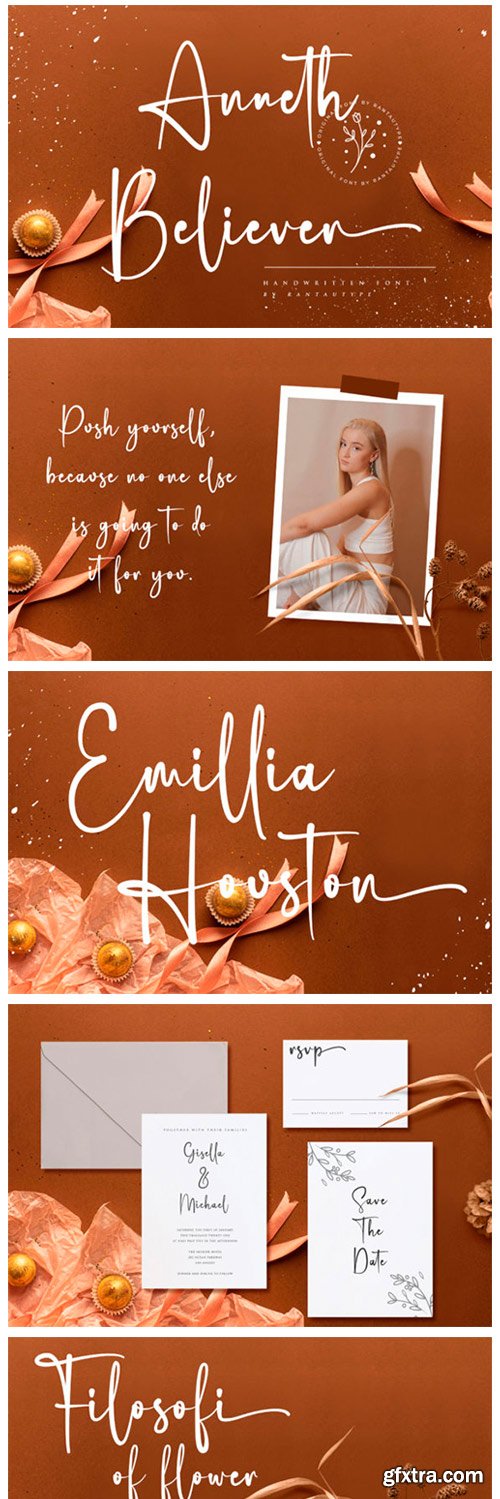
Anneth Believer Font
Anneth Believer is an unique handwritten font. Whether you’re using it for crafting, digital designing, presentations, or greeting card making, it’s perfect! Fall in love with its incredibly versatile style and use it to create spectacular designs! This font is PUA encoded which means you can access all of the glyphs and swashes with ease!
Barosa Font
Baroša is an awesome 3D display font that will fit perfectly on each of your designs. Have fun with this beautiful font and explore its endless variations.
Jonah Font
Jonah is a beautiful paint brushed handwritten font with a unique feel and a stunning impact. It will add a luxury spark to any design project that you wish to create! This font is PUA encoded which means you can access all of the amazing glyphs and ligatures with ease!
Hello Famous Font
Hello Famous is an elegant and sweet script with a romantic spark. Use it to add that special enchanting touch to any design idea you can think of! This font is PUA encoded which means you can access all of the glyphs and swashes with ease!
Dettreon Smith Font
Dettreon Smith is a beautiful light handwritten font with a unique feel and a stunning impact. It will add a luxury spark to any design project that you wish to create! This font is PUA encoded which means you can access all of the amazing glyphs and ligatures with ease!
Kyrielle Font
Kyrielle is a delicate, elegant and flowing handwritten font. It has beautiful and well balanced characters and as a result, it matches a wide pool of designs. Add it to your most creative ideas and notice how it makes them come alive! This font is PUA encoded which means you can access all of the glyphs and swashes with ease!